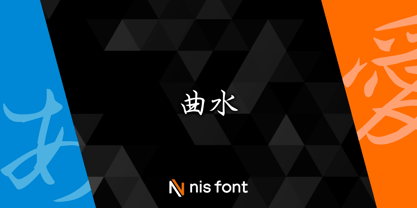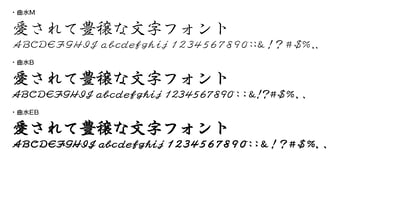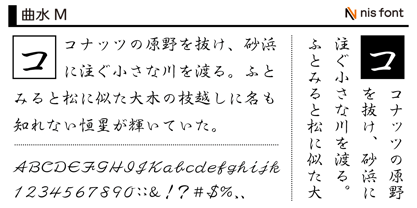
OT-NIS_K
by NIS Fonts
The OT-NIS_K Font Family was designed by and published by NIS Fonts. OT-NIS_K contains 3 styles and family package options. More about this family
This is an elegant semi-cursive typeface. Including this product, it is available in three weights: Medium, Bold, and Extra Bold, making it a rare typeface family for semi-cursive styles. Note: This typeface supports the JIS2004 character set.